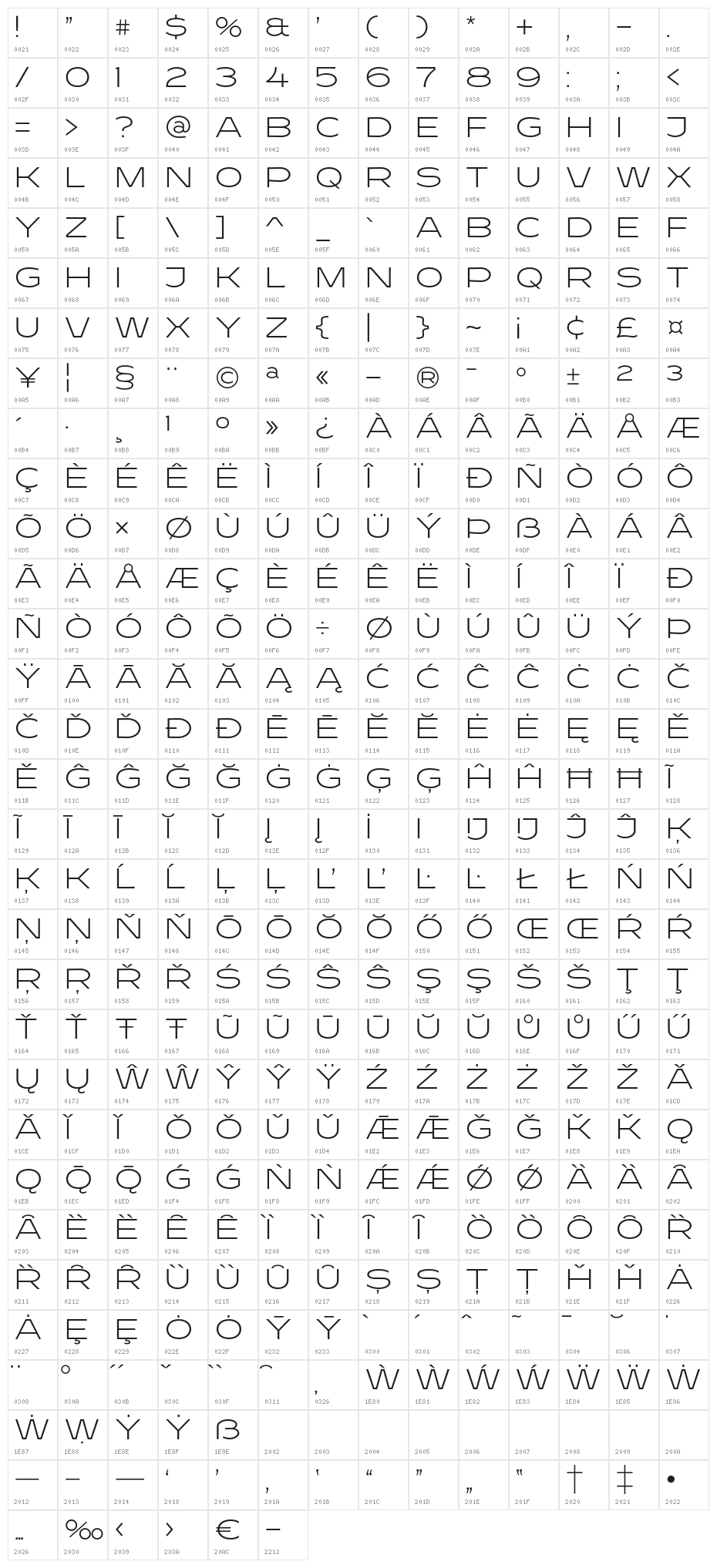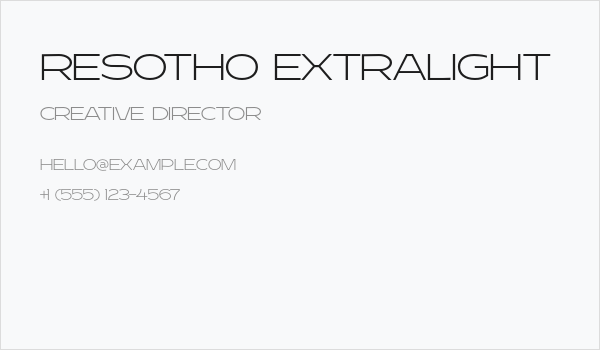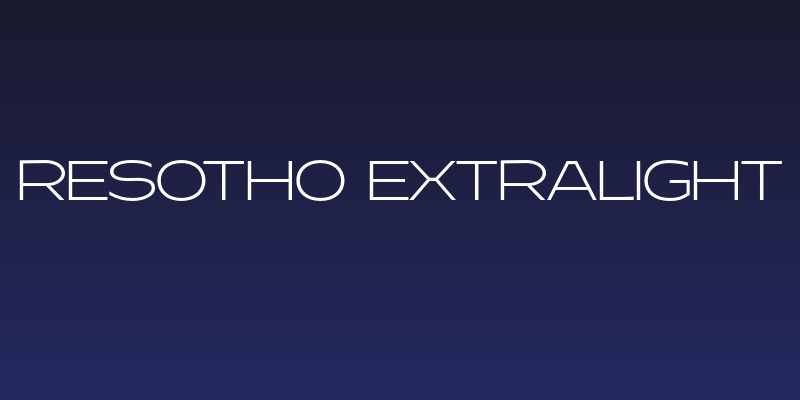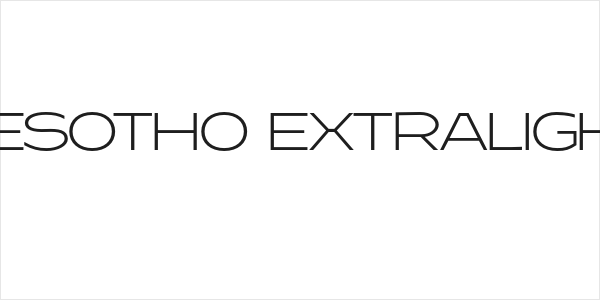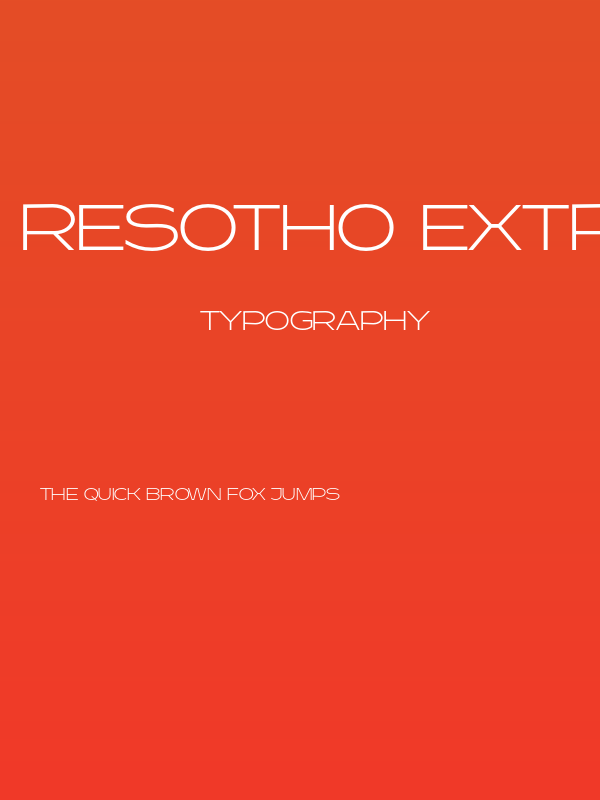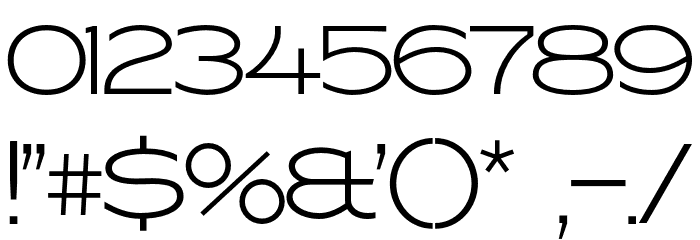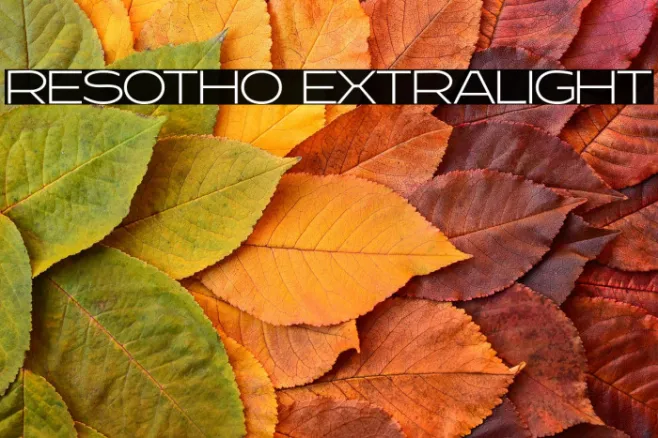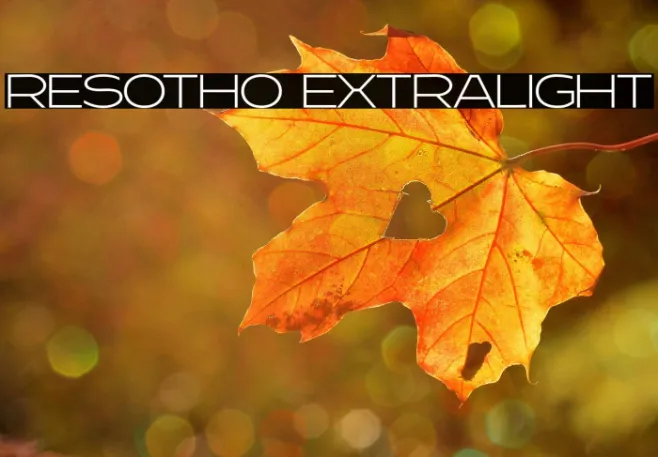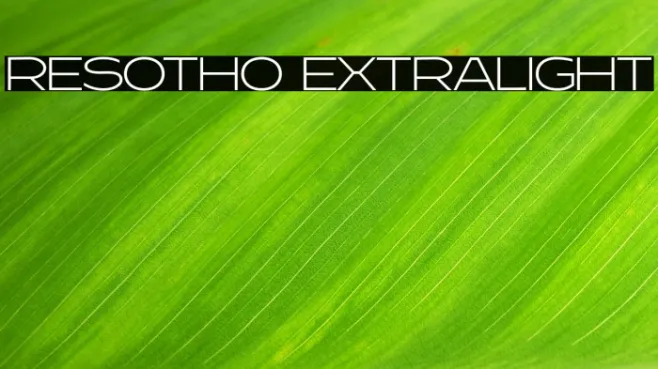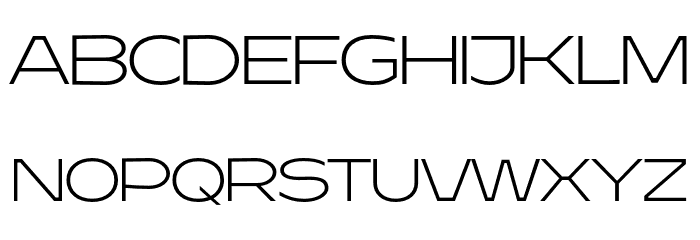
Resotho Extralight Font
Resotho Extralight Description
This font features a sleek, geometric design with clean, sharp lines and a modern aesthetic. The characters are constructed with a uniform stroke width, giving it a consistent and harmonious appearance. The uppercase letters are particularly striking, with a futuristic feel that is both elegant and minimalistic. The numerals and special characters maintain this cohesive style, making the font versatile for various design applications. Its simplicity and clarity make it suitable for contemporary projects that require a touch of sophistication.
| Proposed Projects | Ideal for branding, advertising, and editorial design projects that require a modern and sophisticated look. |